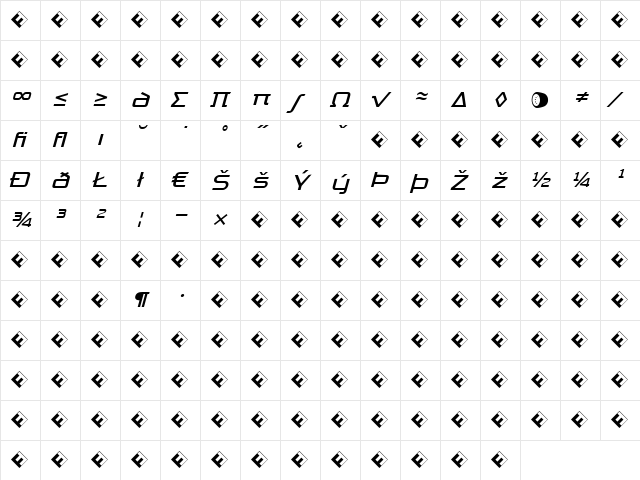
TradeMarker Light Italic Font Preview
TradeMarker Light Italic
Design Context for TradeMarker Typeface
TradeMarker takes a measured approach to typography — its balanced proportions and neutral character make it a reliable workhorse for both digital and print work. The slanted form adds forward momentum and visual energy. Its slender proportions lend an understated elegance to any composition.
Pro Tip: Use TradeMarker for emphasis, pull quotes, and subheadings where its slanted energy can add rhythm to the layout.